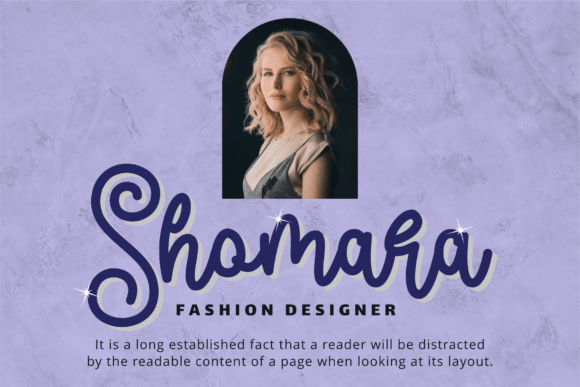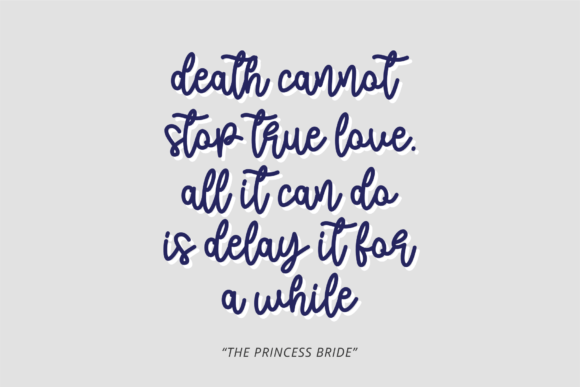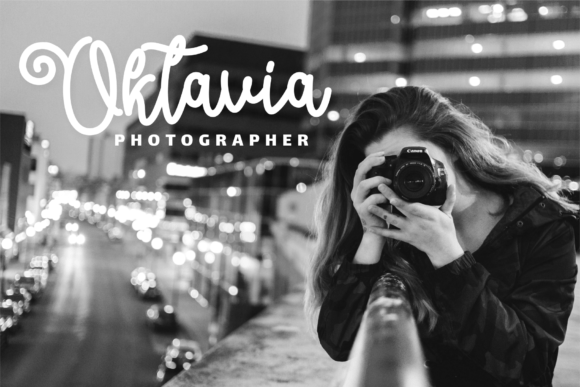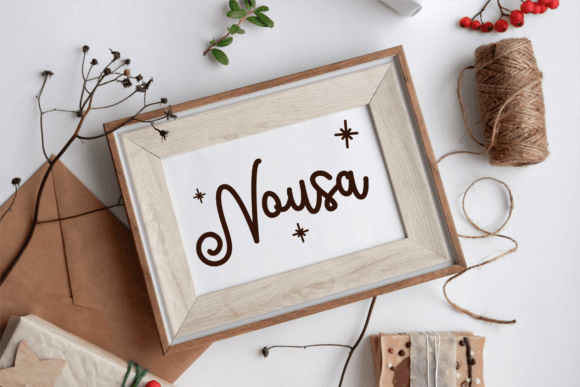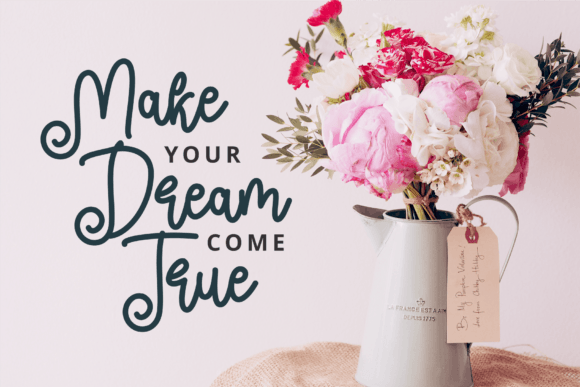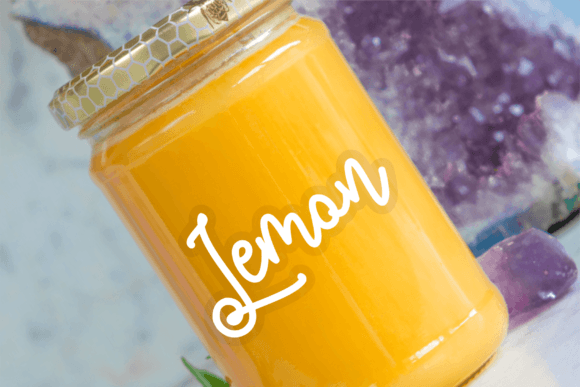
Introduction to Hesty and Gita Font
Hesty and Gita is a simple and delicate script font.
This font is perfect for your craft projects, Christmas decor, farmhouse signs, poster, t-shirtS and more Have fun with this beautiful font and explore its endless variations.
Hesty and Gita Font offers exceptional quality and versatility, making it a valuable addition to your design toolkit. Whether you’re creating for personal projects or commercial use, Hesty and Gita Font delivers professional results.